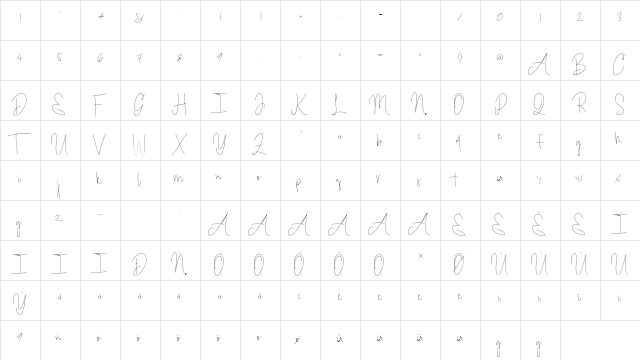
Bright Daddy Regular
Design Context for Bright Daddy Typeface
Bright Daddy takes a measured approach to typography — its balanced proportions and neutral character make it a reliable workhorse for both digital and print work.